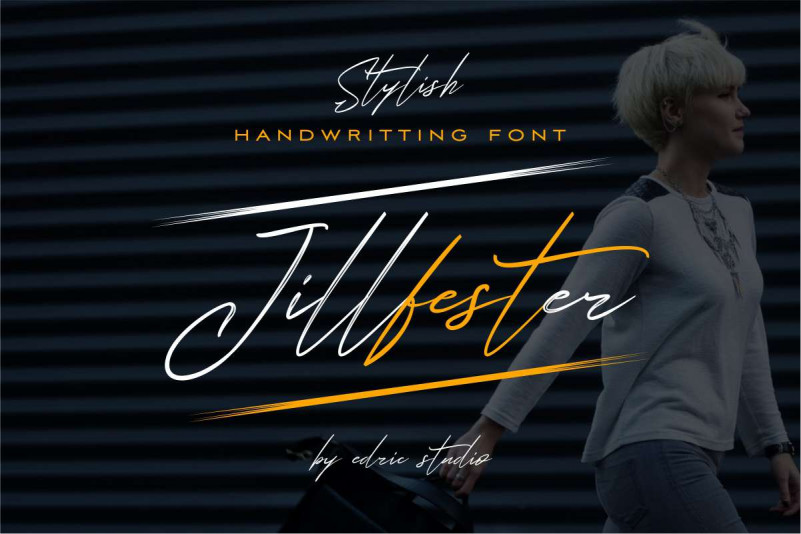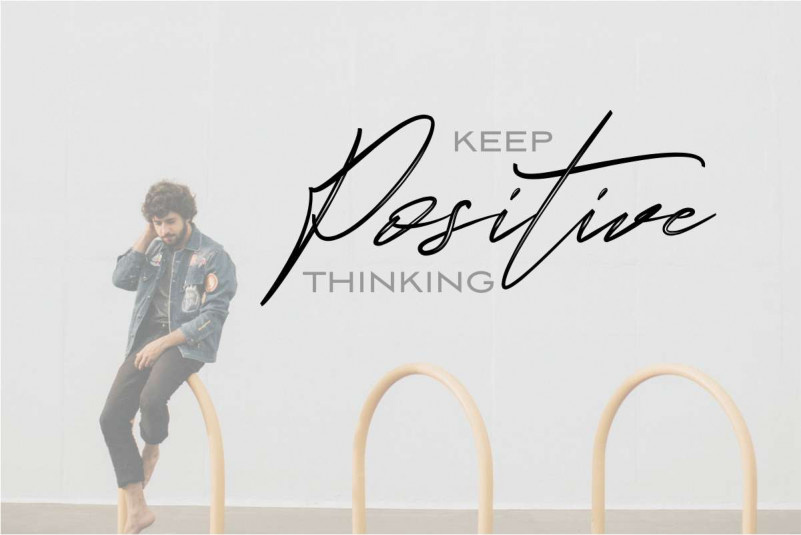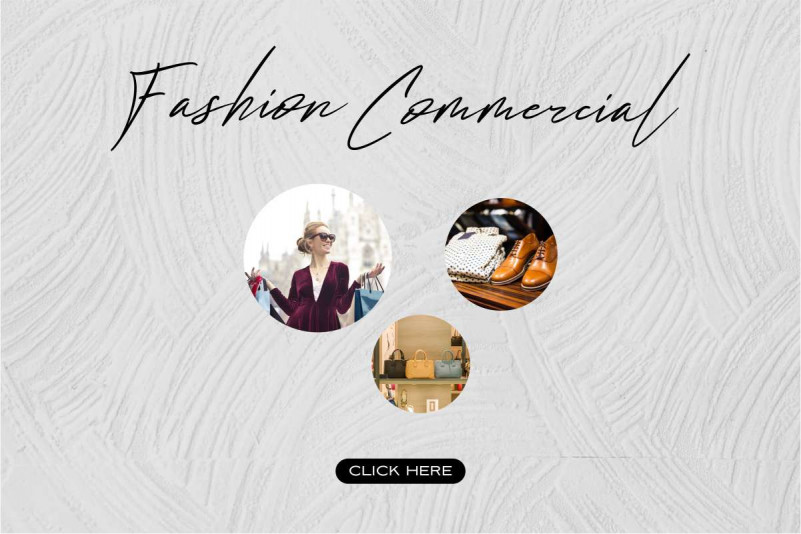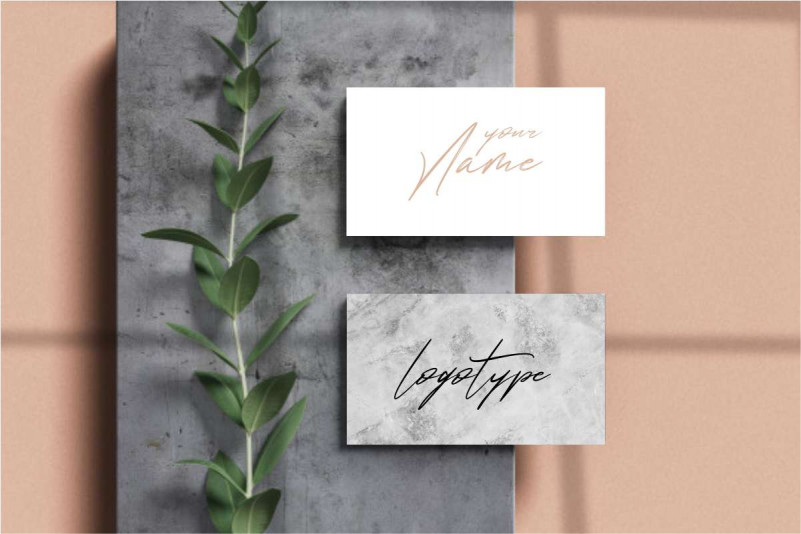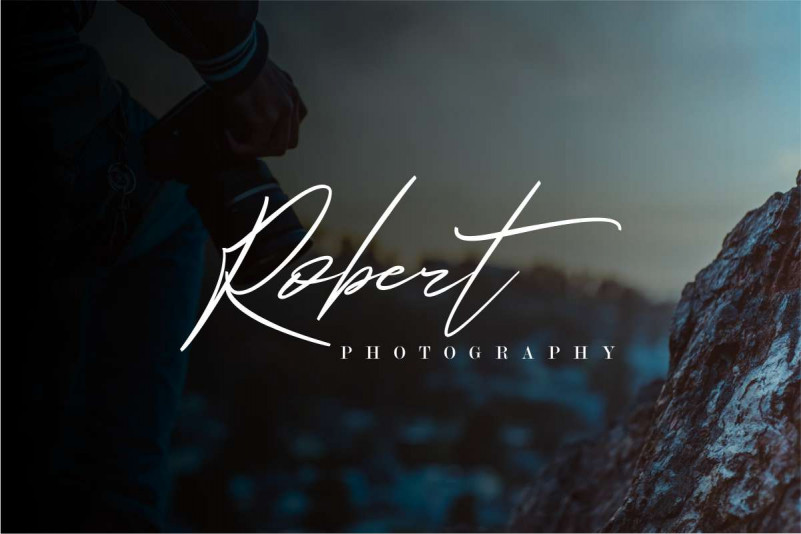
Jillfester Brush Font
Jillfester Font has two styles : clean and textured brush glyphs. This font will be great for many projects : branding, logotype (with extended license), stationery, business card, signage, flyer, brochure, promotional materials etc. There are many industries that is suitable for this font : Creative, art, fashion, travel, hotel etc